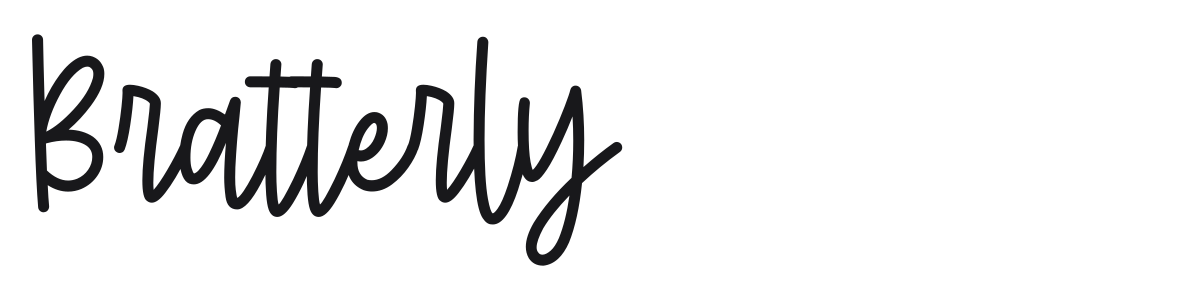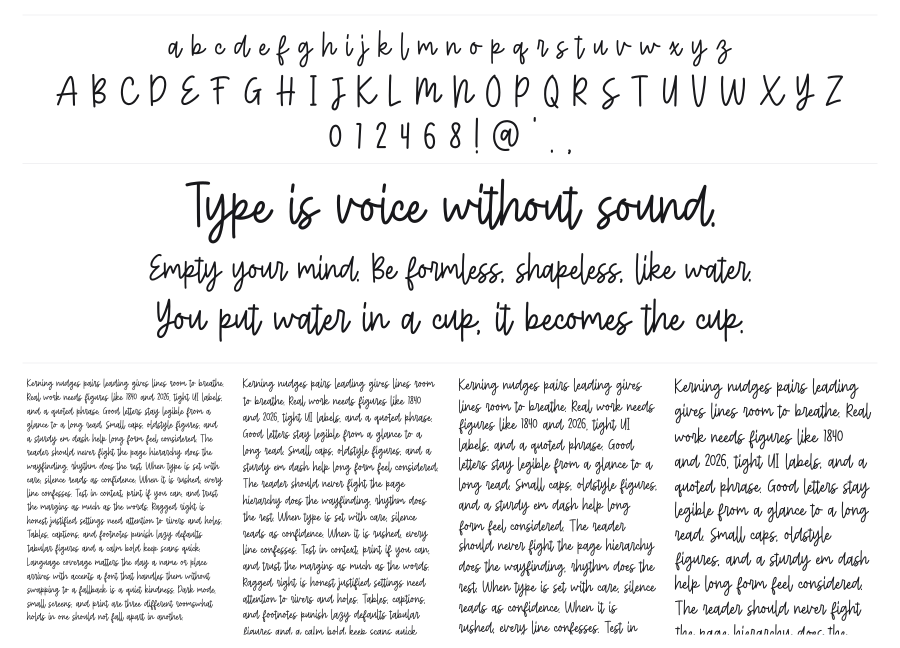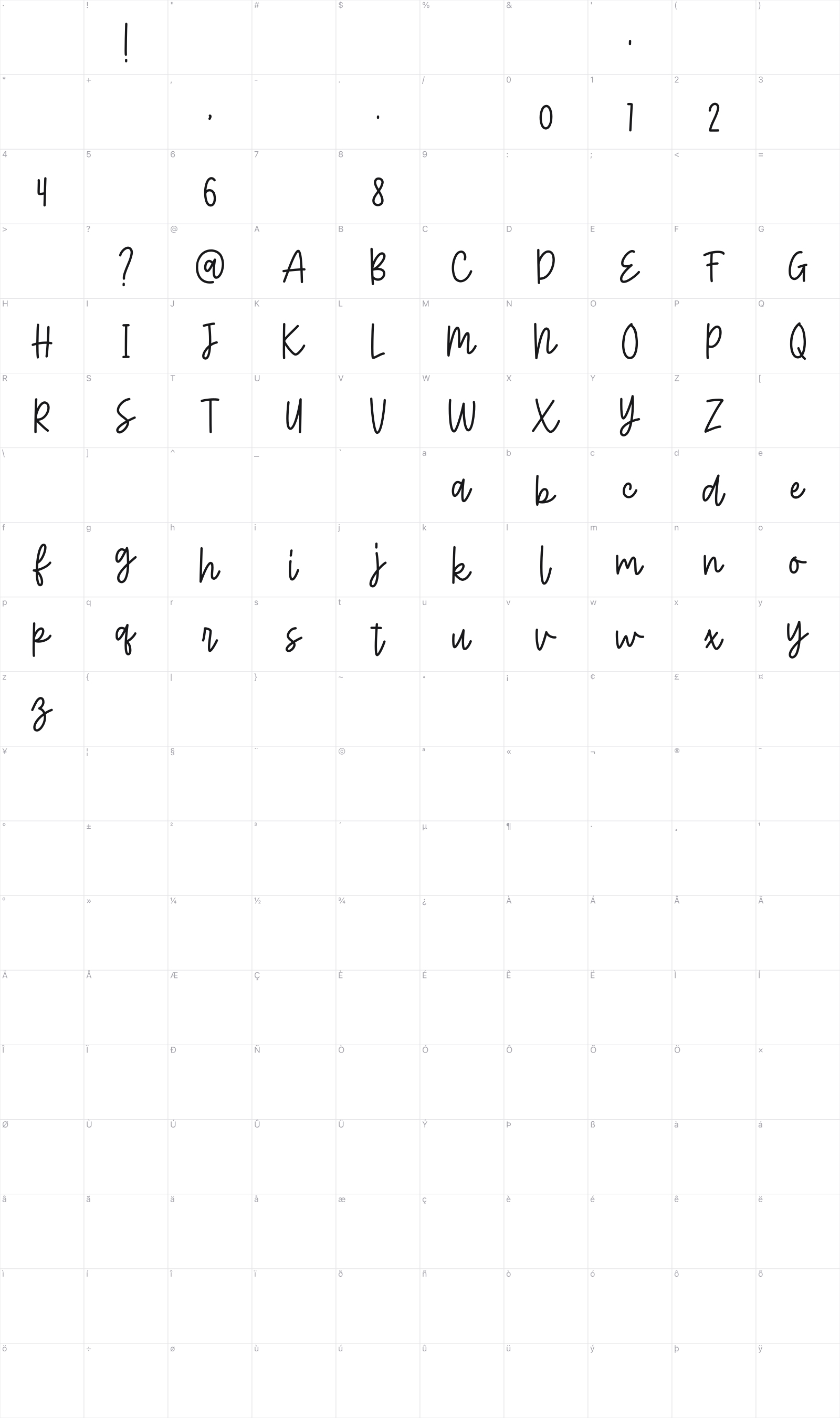
Bratterly
Bratterly is a casual connected script with an easy, natural flow that mimics relaxed everyday handwriting. Strokes stay near-monoweight throughout, giving it a clean, unforced look without the formality of calligraphy. It works across branding, packaging, and social content where a personal, friendly touch is the point.